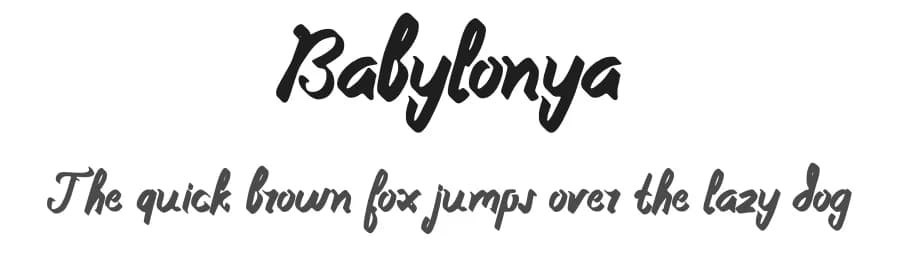
About Babylonya Font
| Designer | Yahhya Anas Atok Illah |
Babylonya Font is a script font that shines as a display or heading face. Pair it with a clean sans-serif or serif font for body text β the contrast creates a clear hierarchy while the two styles stay balanced and easy to read.
Babylonya Font
by Yahhya Anas